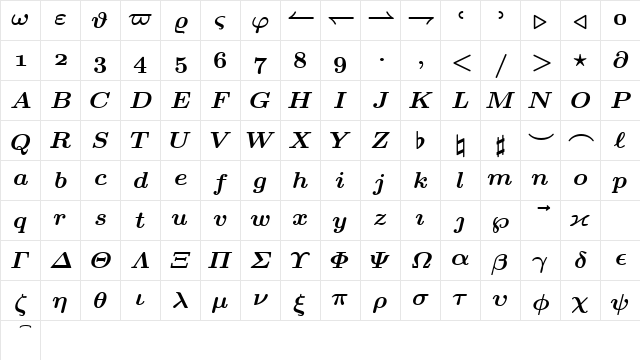
cmmib9 Regular
Design Context for cmmib9 Typeface
cmmib9 takes a measured approach to typography — its balanced proportions and neutral character make it a reliable workhorse for both digital and print work.